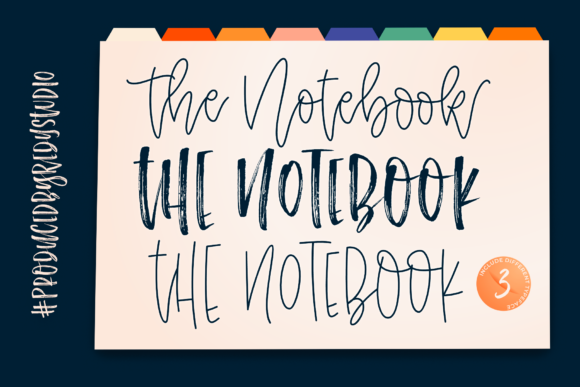
Journey into the Realm of Enchantment with The Notebook Font, Your Gateway to Beauty and Grace
In the world of typography, few fonts possess the captivating allure and timeless elegance of The Notebook Font, a mesmerizing script font crafted with a touch of magic. Inspired by the charm of handwritten notes and the allure of vintage calligraphy, this font family is a testament to the enduring power of beauty and grace.
With its delicate curves, flowing lines, and enchanting swashes, The Notebook Font invites you to embark on a journey of creativity, where your words will dance across the page with an air of effortless sophistication. Its carefully crafted characters exude a sense of warmth and intimacy, making it the perfect choice for projects that demand an emotional connection with your audience.
Step into a world of endless possibilities, where The Notebook Font transforms your designs into captivating masterpieces. Its versatility knows no bounds, lending itself effortlessly to a myriad of applications. From wedding invitations and love letters to branding projects and social media posts, this font is your trusted companion, adding a touch of elegance and charm to every endeavor.
Unleash your inner artist and let your creativity soar with The Notebook Font. Its PUA encoding grants you access to a treasure trove of glyphs and swashes, empowering you to unleash your imagination and create designs that are as unique and captivating as your own personal style.
Join the ranks of discerning designers and creative professionals who have discovered the transformative power of The Notebook Font. Let it be your muse, your guiding light, as you craft designs that resonate with beauty, elegance, and a touch of timeless magic.